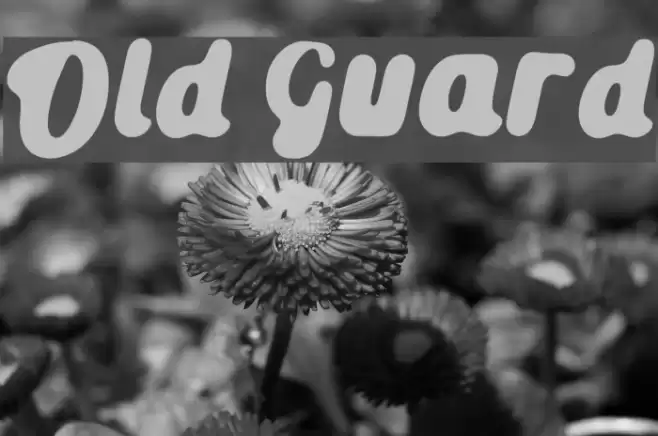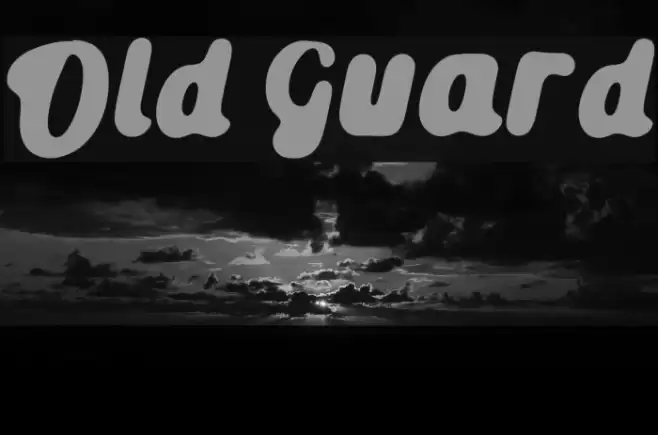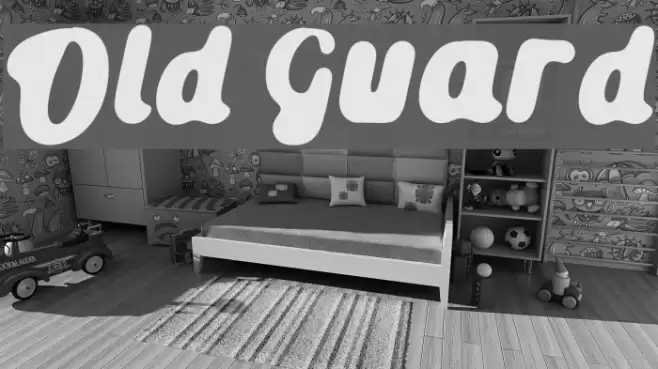
Old Guard Font
Old Guard Description
This font features a bold, playful style with thick, rounded strokes that give it a lively and energetic appearance. The characters are slightly slanted, adding a sense of movement and dynamism. The uppercase and lowercase letters maintain a consistent weight, creating a harmonious look across the alphabet. The numbers and special characters follow the same design principles, ensuring uniformity throughout. The font's boldness and unique style make it stand out, making it suitable for attention-grabbing designs.
A bold, playful font with thick, rounded strokes and a lively appearance from Uncategorized fonts.
- Proposed Projects: Ideal for children's books, playful branding, posters, and creative advertisements.
- Overall Style: Playful, Energetic